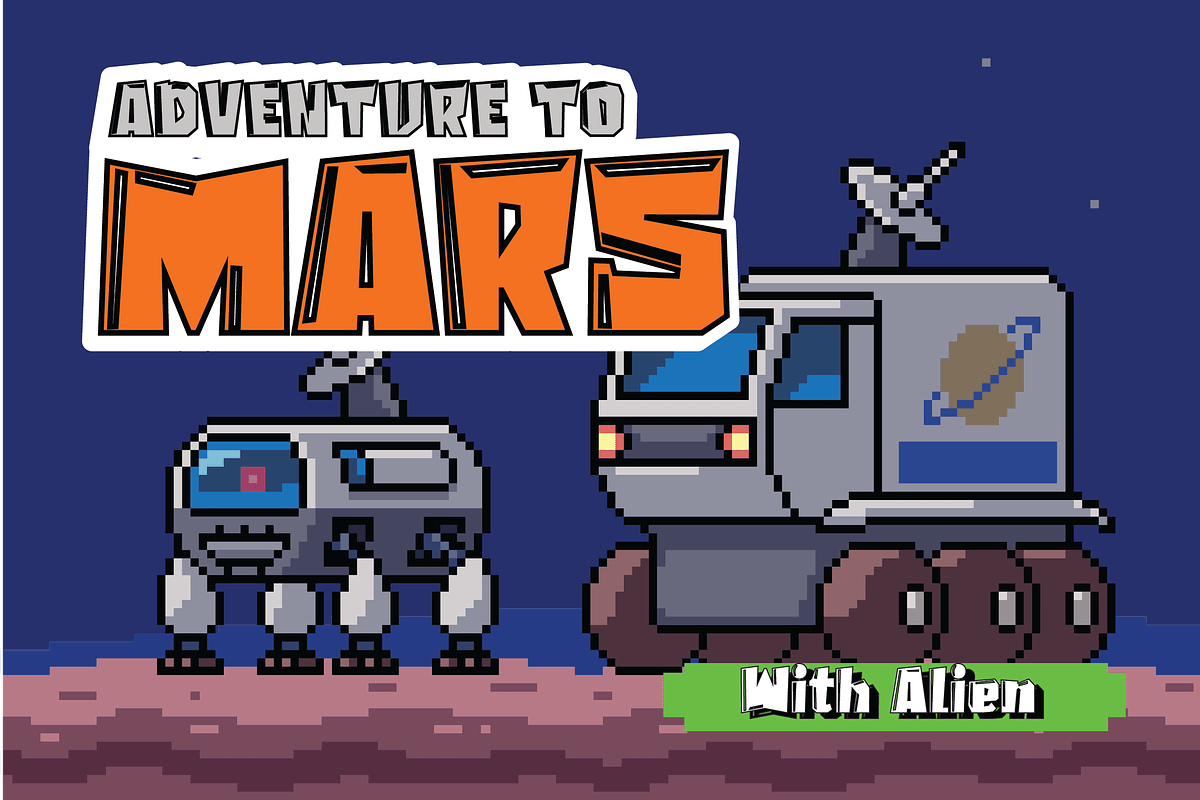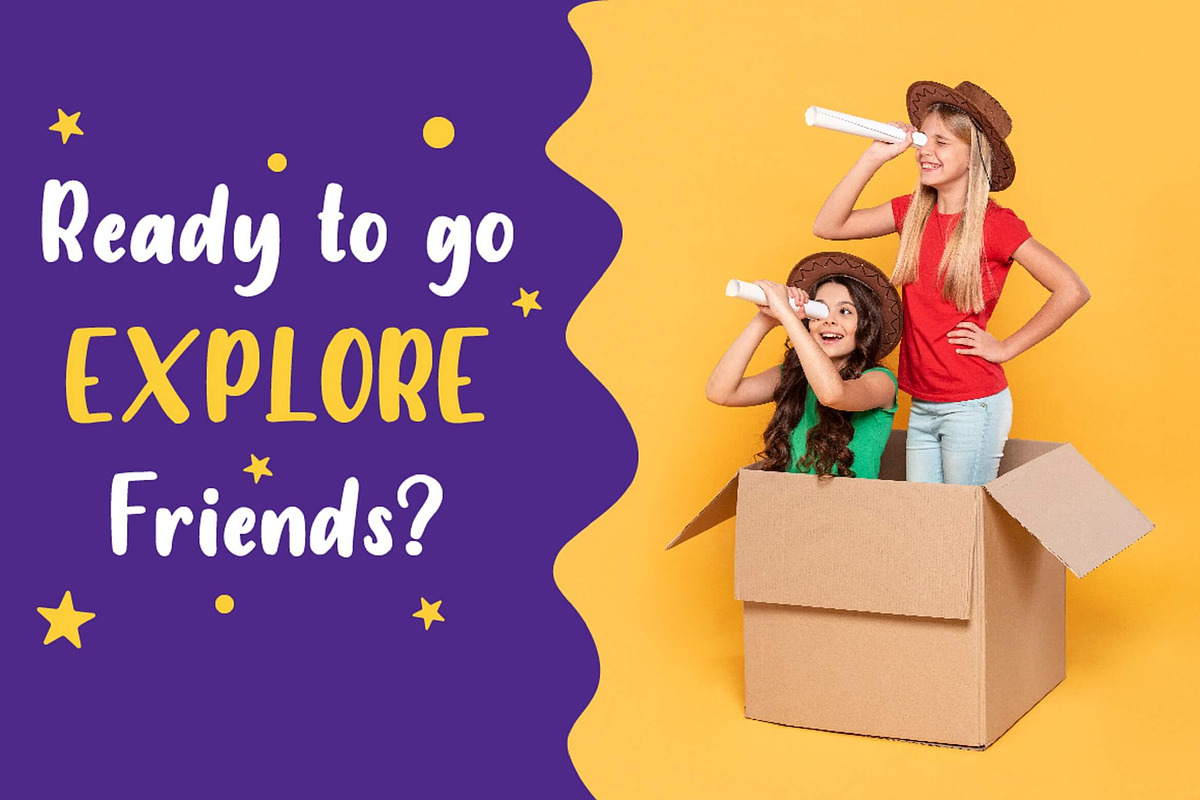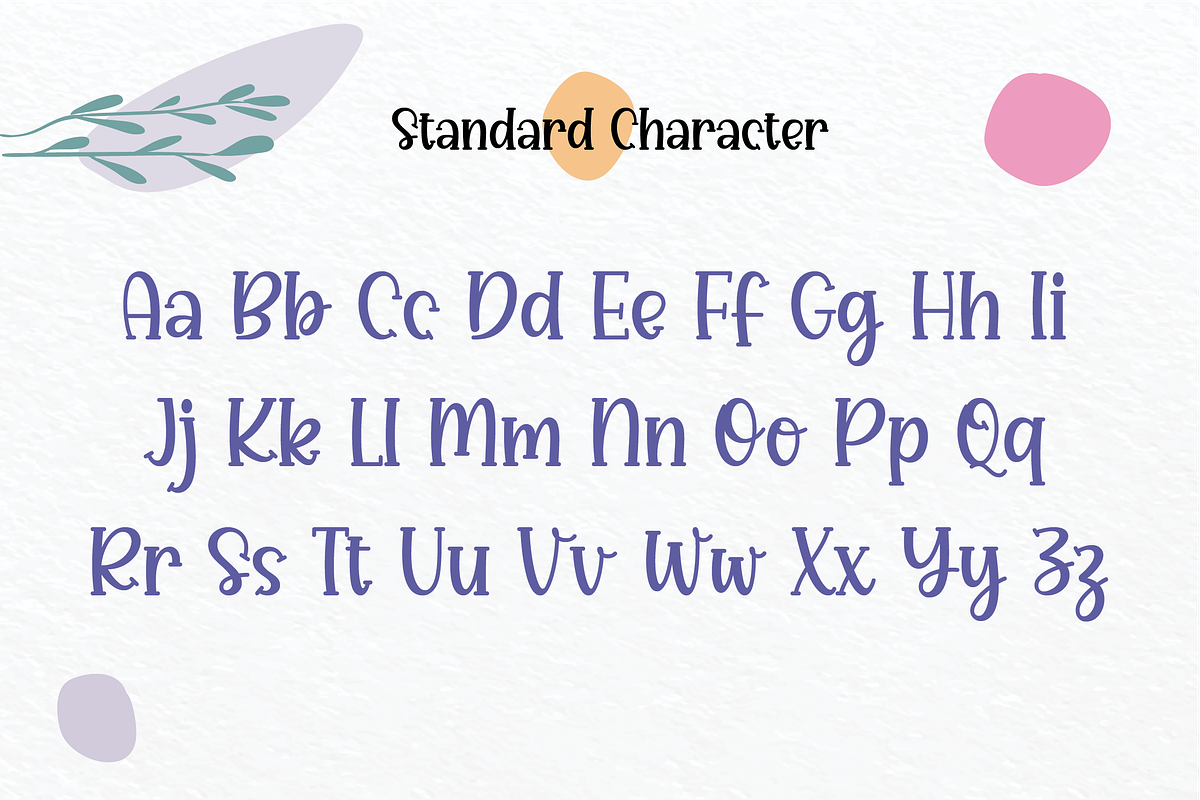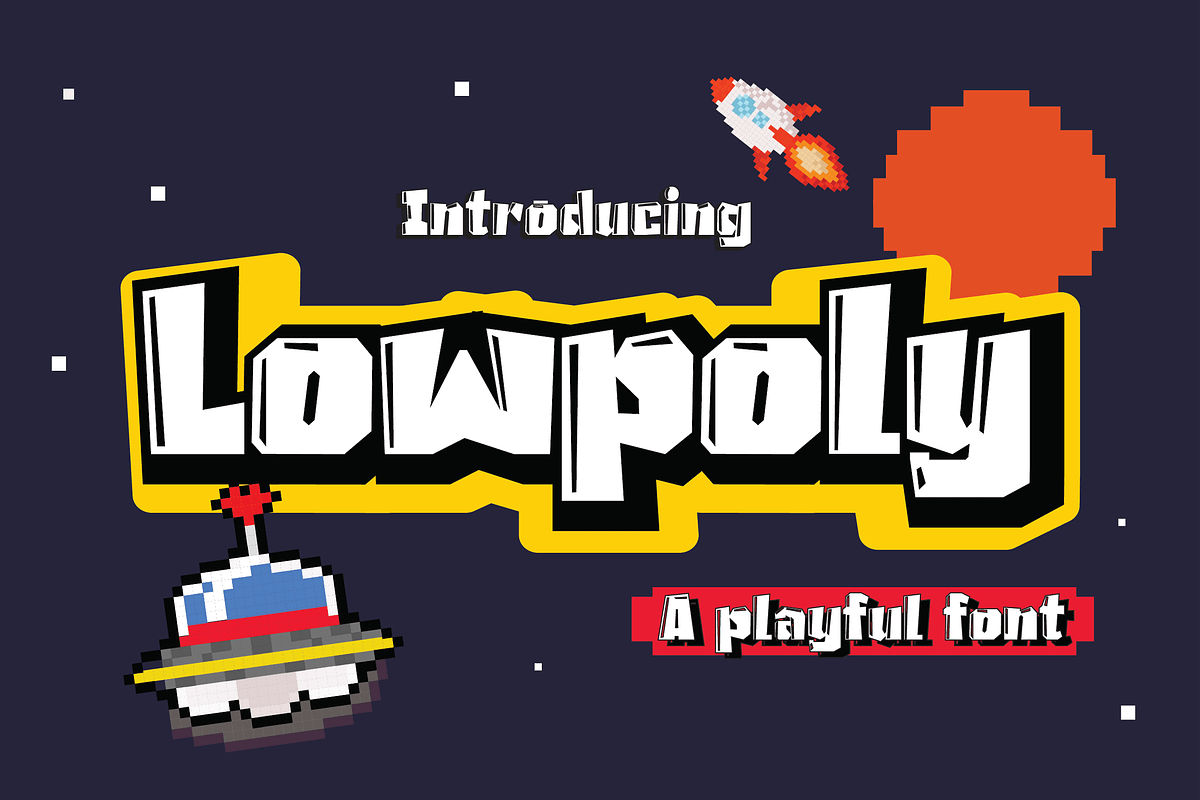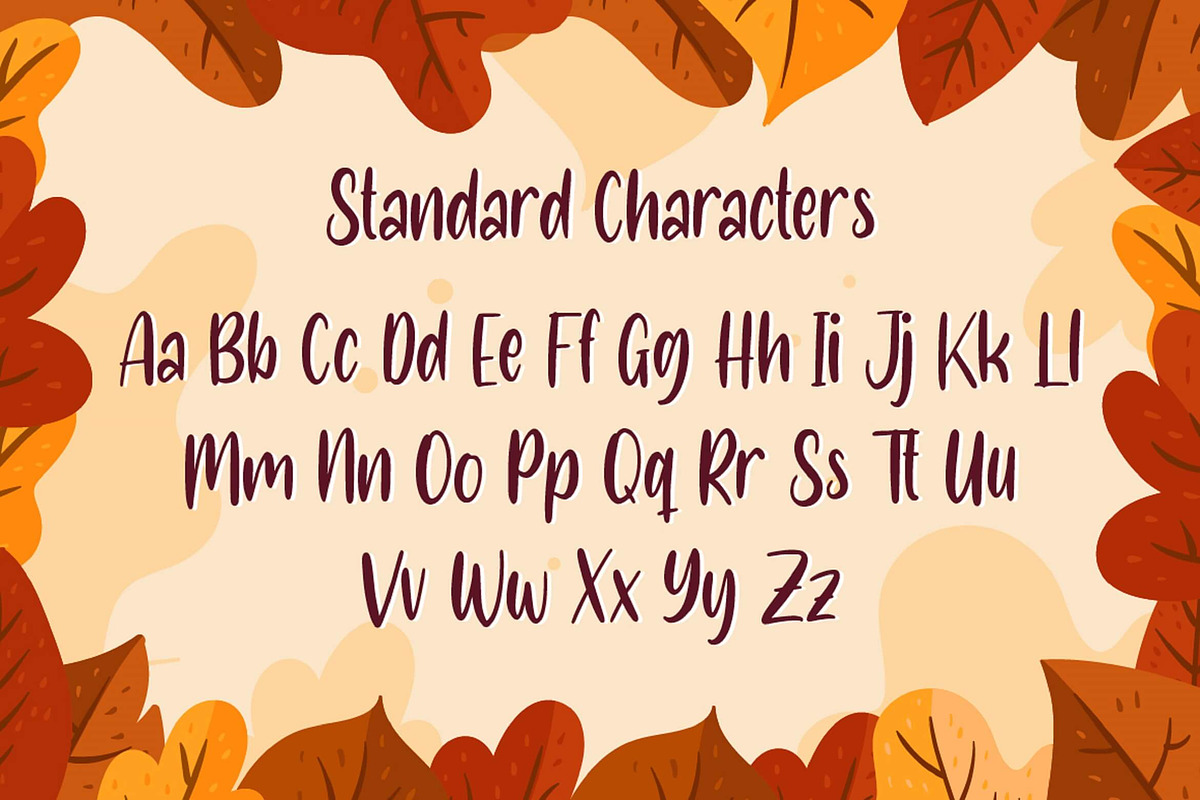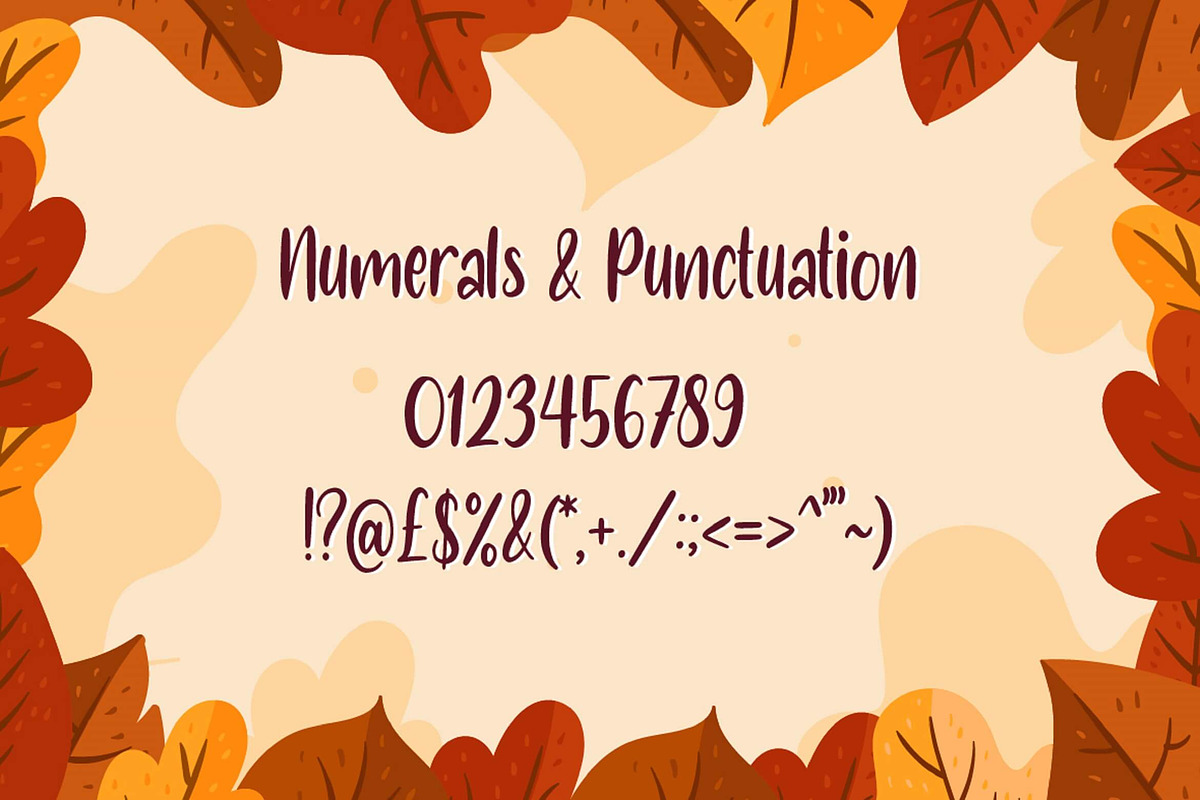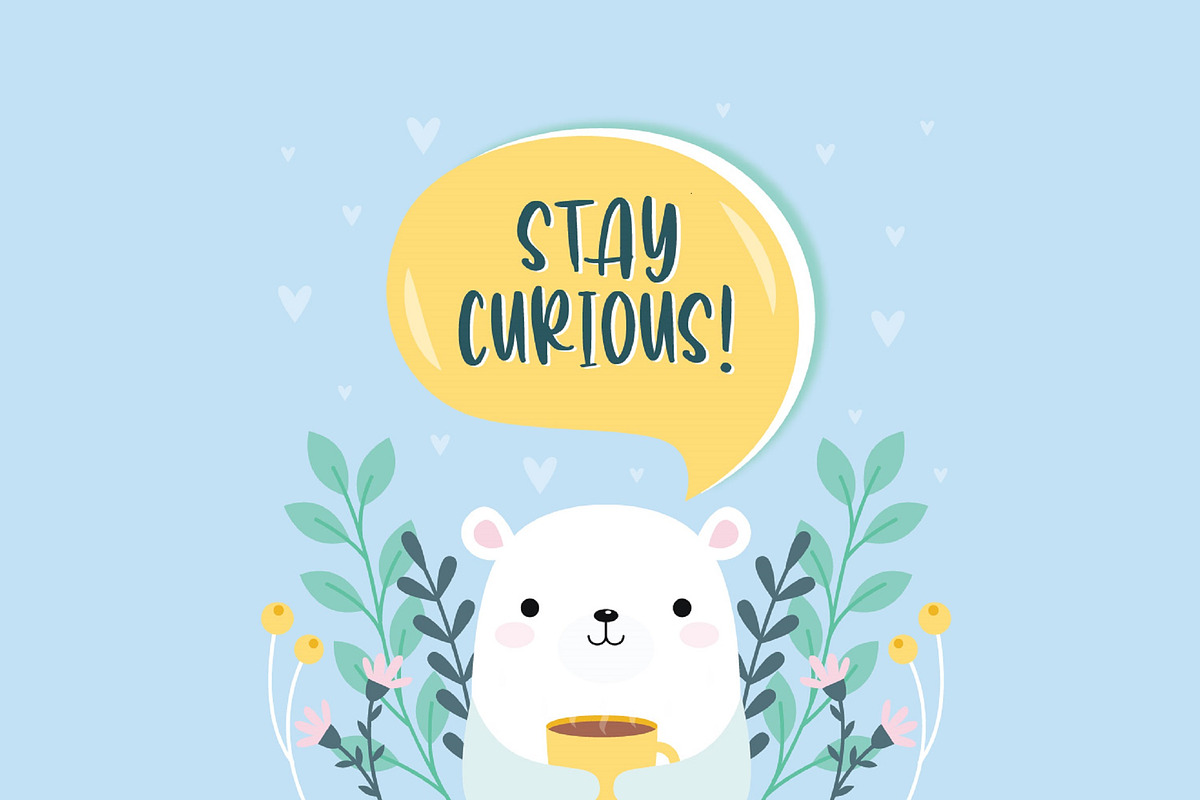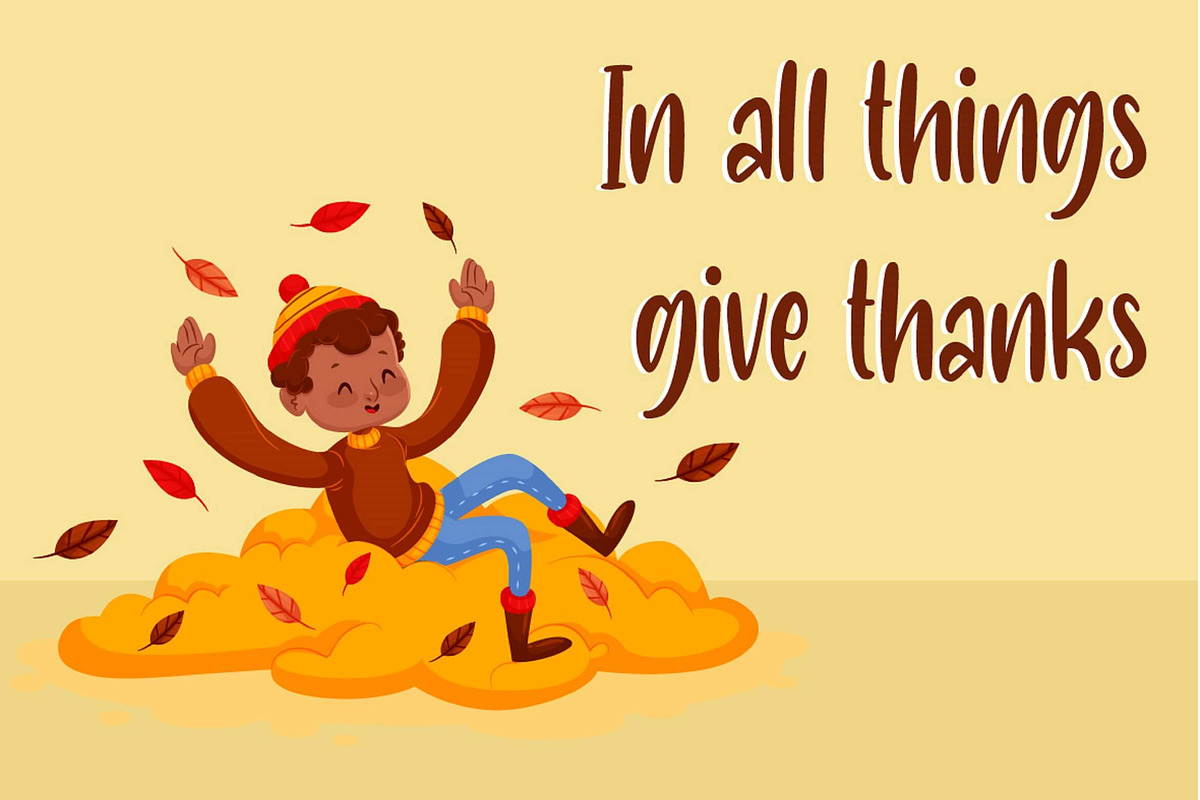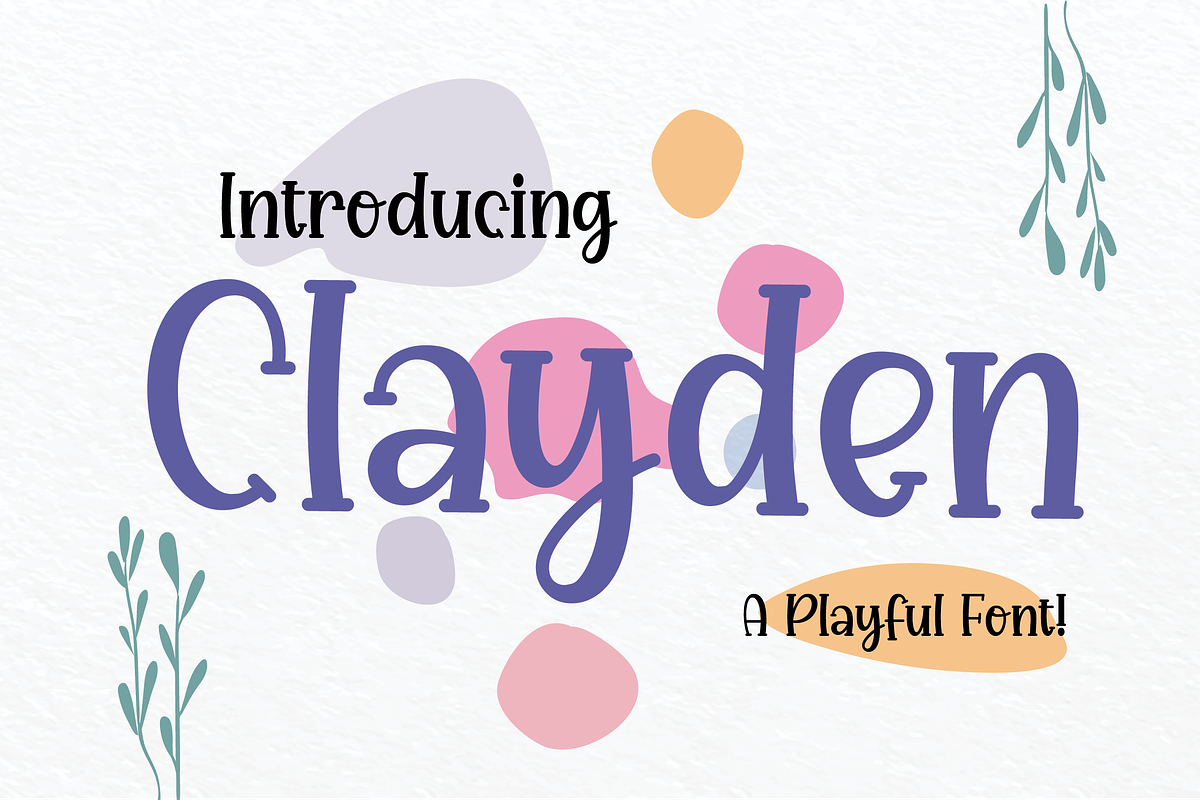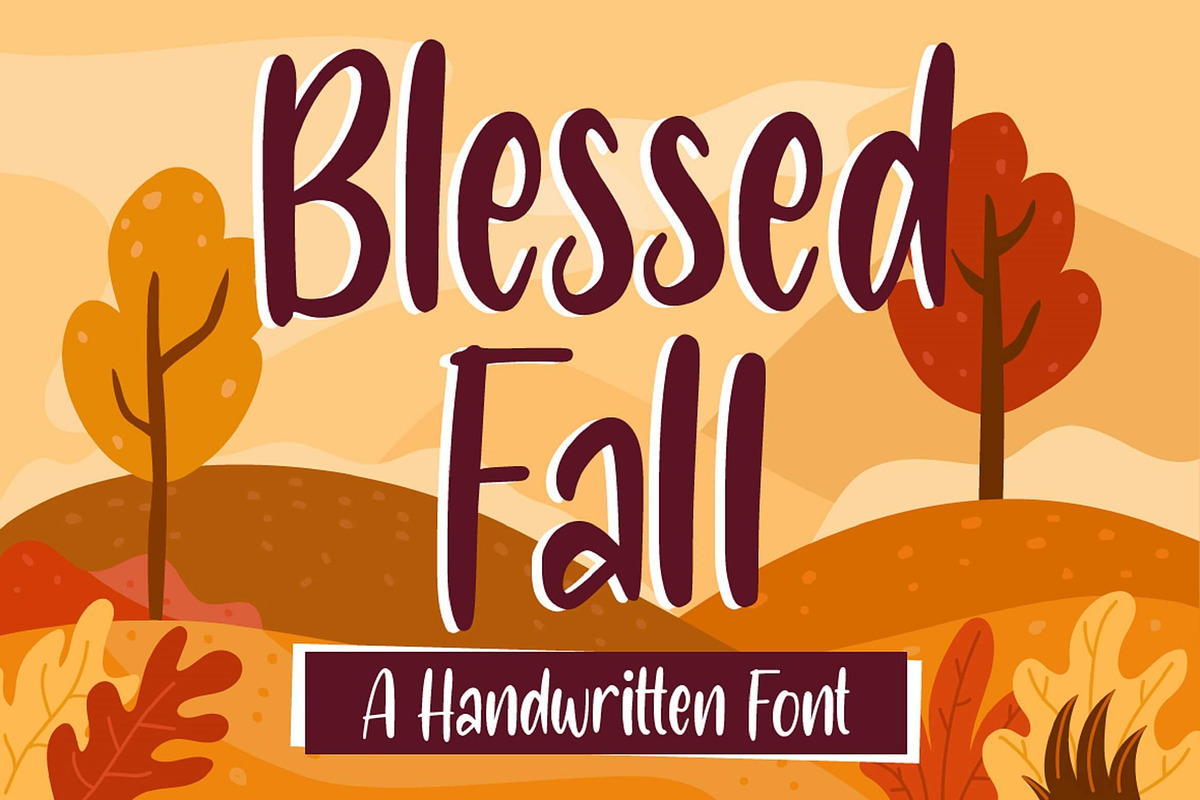
Back to School Font Bundle
If you’re a teacher, a mother, or a student that is welcoming the new adventure of school this bundle is perfect for you! Or you can use this for, a birthday party, or need a versatile font for printed materials - then we’ve got the font that’ll make your branding sparkle!
This adorable, fun, and stylish font can be used for a host of different content needs and projects. Create gorgeous party invitations, printed quotes, standout packaging, or beautiful t-shirts! You can even use it to create amazing headings, logos, resumes, and social media graphics.
- MOST of the fonts in this bundle offers alternate ligature feature